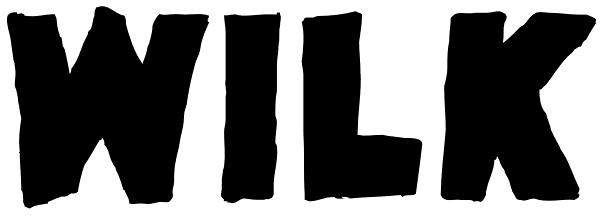
WILK
Do you need a hand-drawn, heavy, creative typeface? If so, WILK is perfect for you! This font was created specially for fairy tale "Little Red Riding Hood" and it was inspired by the fairy-tale's character of wolf . The typography is tight- knit and...